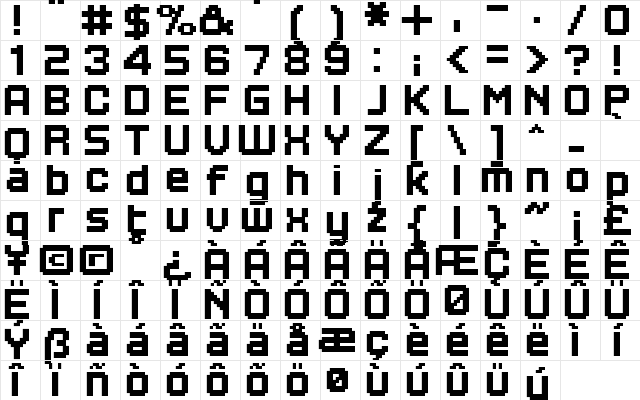
Complete FFF Calypso Extended Regular glyph index. Displaying only characters natively supported by FFF Calypso Extended Regular font.
FFF Calypso Extended is a composed and adaptable typeface that performs quietly and consistently across a wide range of design contexts.